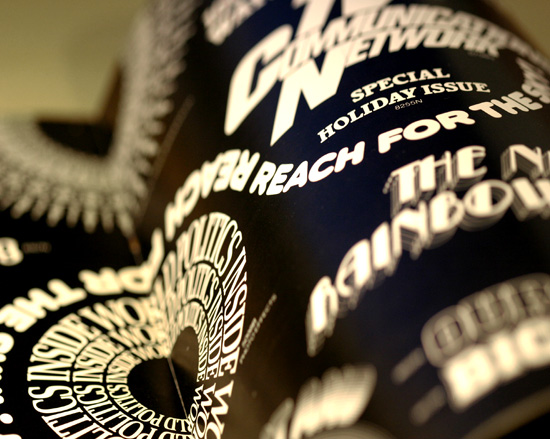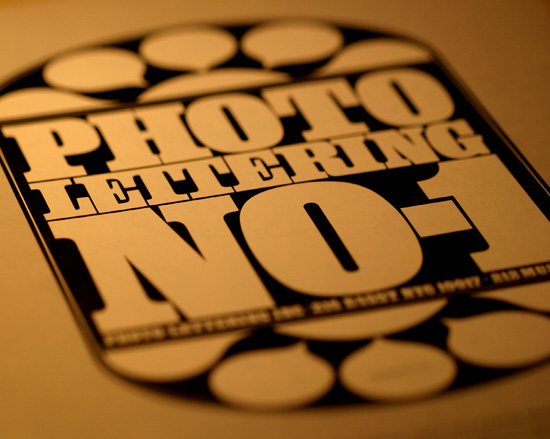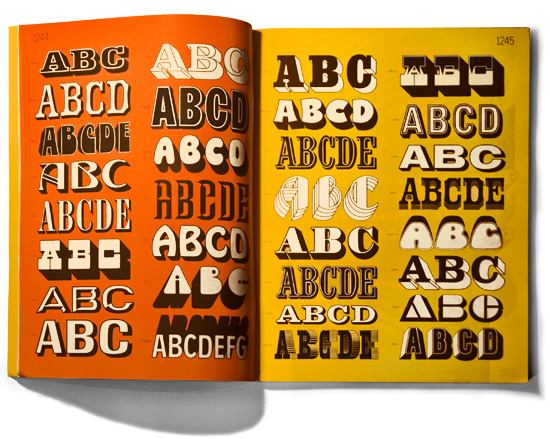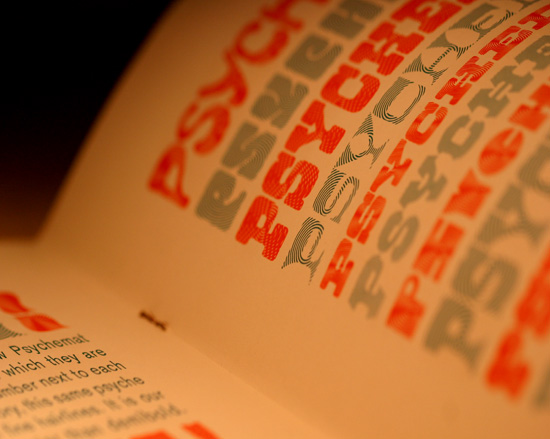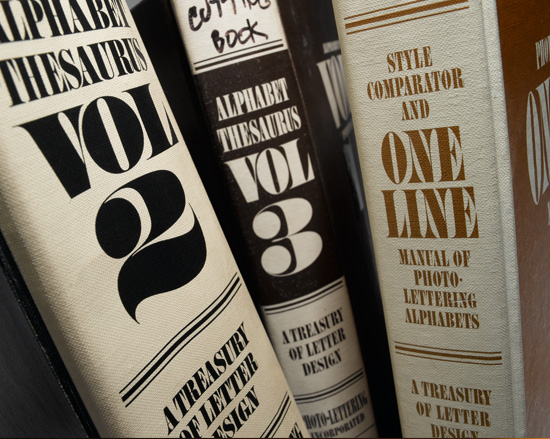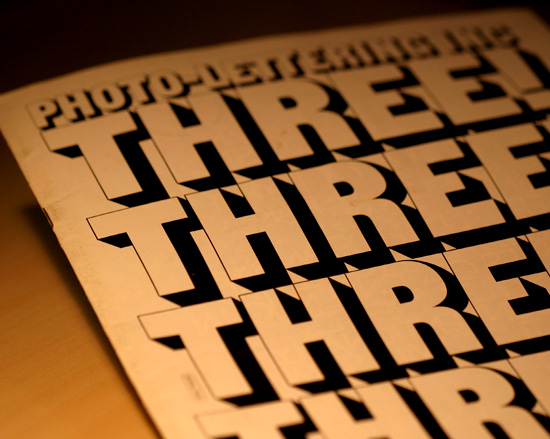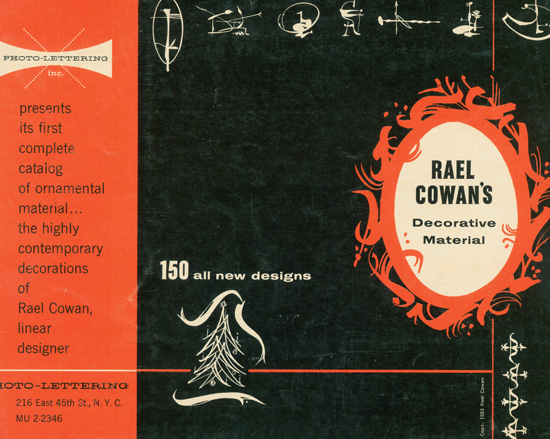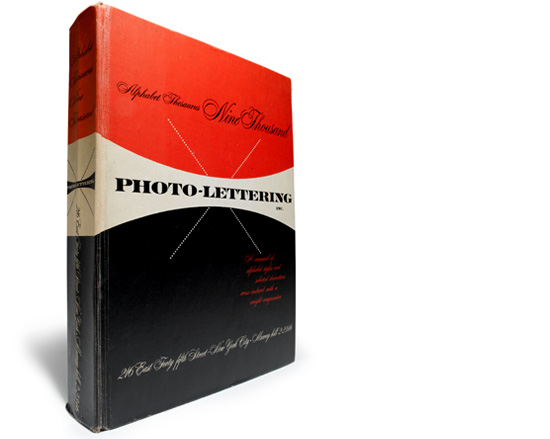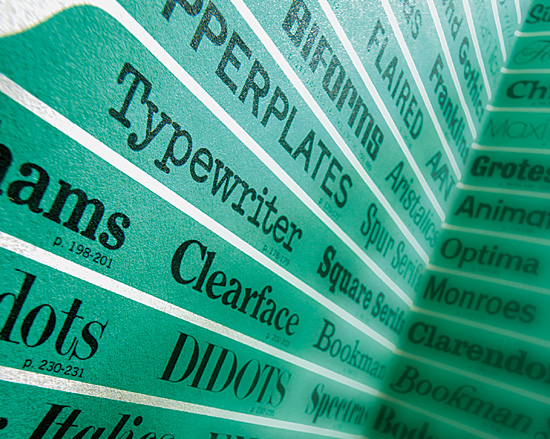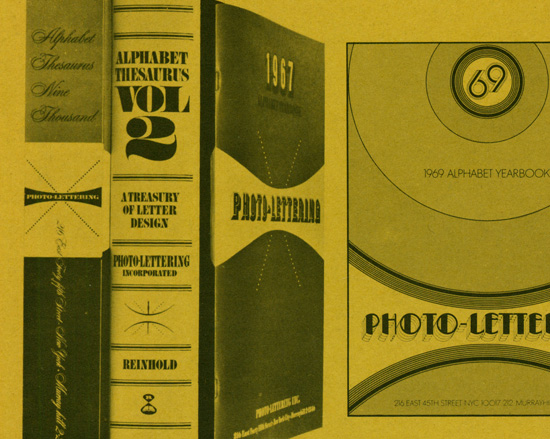
Photo-Lettering is best known by today’s graphic designers for its ubiquitous type catalogs. Cast off at the beginning of the digital revolution as obsolete relics, designers soon began to see the books as an oasis of lettering, typographic and design influence.